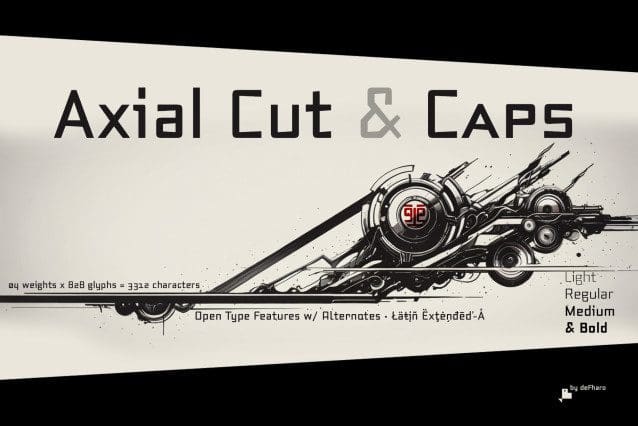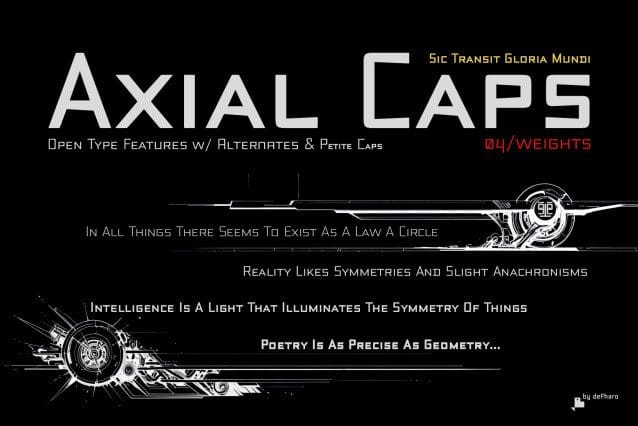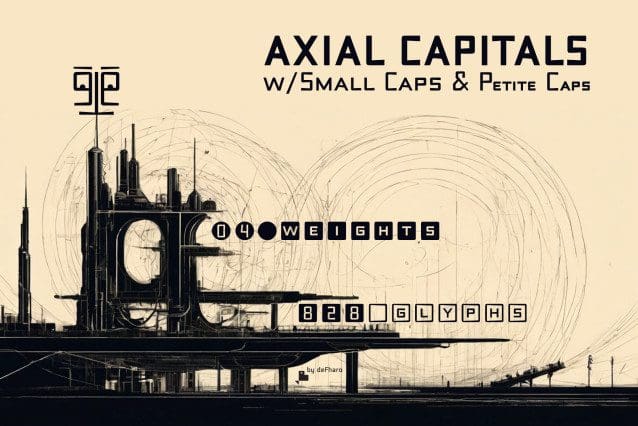
Axial Caps Font
Axial Caps Font – Sans serif capitals typefaces, a contemporary and rounded evolution where the letters are built on an axial axis.
Trapezoidal counter-shapes, joints with reduced stems correct optical effects in small sizes and make the typeface more legible, while in large sizes it stands out for its original shapes.